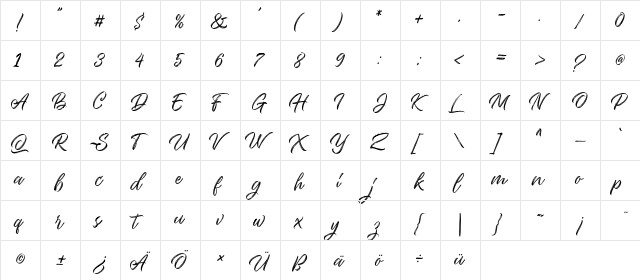
Seymore Script Regular
Design Context for Seymore Script Typeface
Seymore Script flows with the natural rhythm of handwritten lettering, making it ideal for designs that call for warmth and personal expression.
Font Pairing: Combine Seymore Script with a simple geometric sans for maximum contrast — the tension between flowing curves and clean structure is a classic typographic pairing.
Pro Tip: Pair Seymore Script with a clean sans-serif for supporting text. The contrast between fluid script and geometric structure creates an elegant typographic hierarchy.